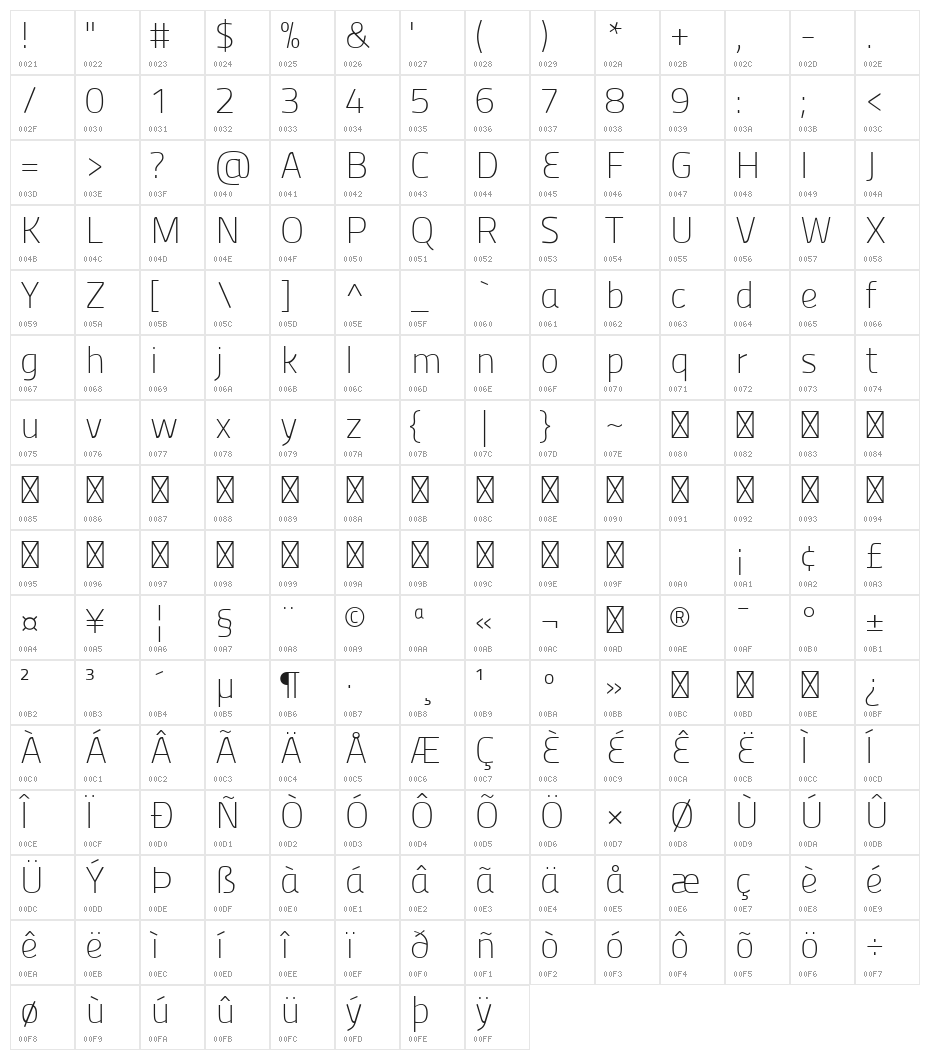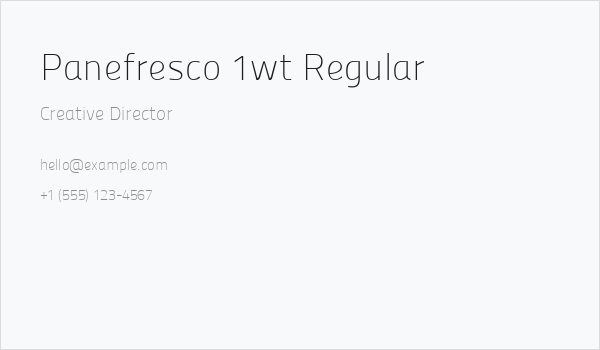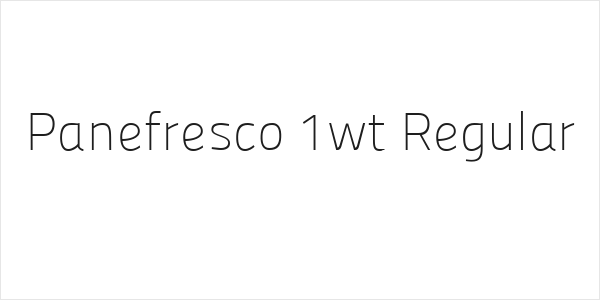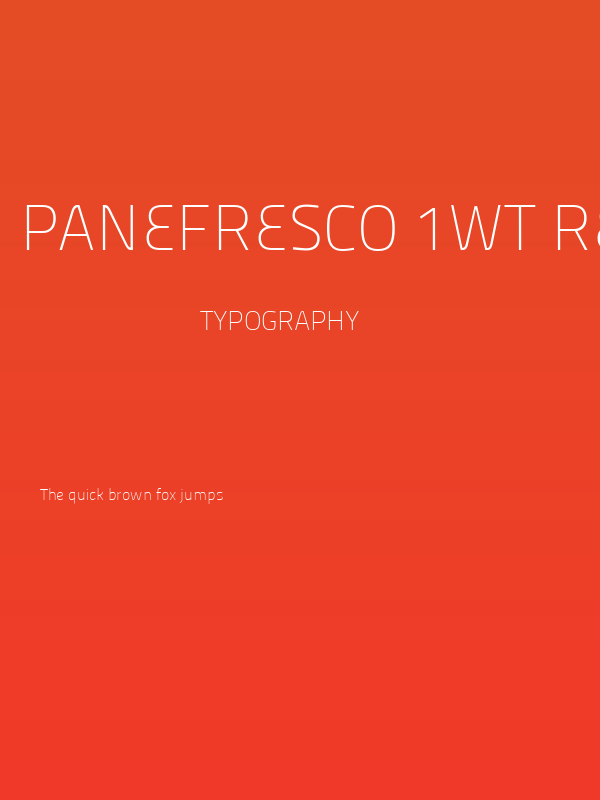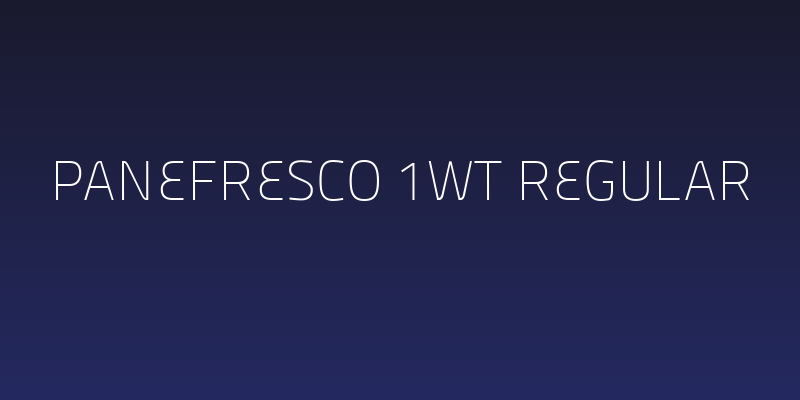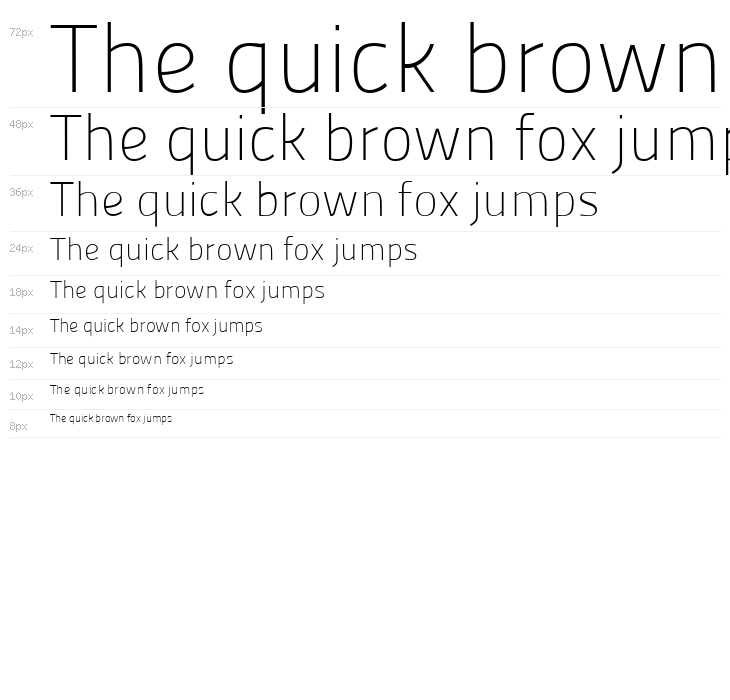
Panefresco 1wt Regular Font
Panefresco 1wt Regular Description
This font exhibits a clean and modern sans-serif style with a geometric structure. The characters are well-proportioned, featuring a uniform stroke width that contributes to its sleek appearance. The uppercase letters are tall and slightly narrow, while the lowercase letters maintain a consistent height, enhancing readability. The numerals are clear and distinct, making them suitable for various applications. Special characters are designed with the same attention to detail, ensuring a cohesive look across all glyphs. This font's simplicity and elegance make it versatile for both digital and print media.